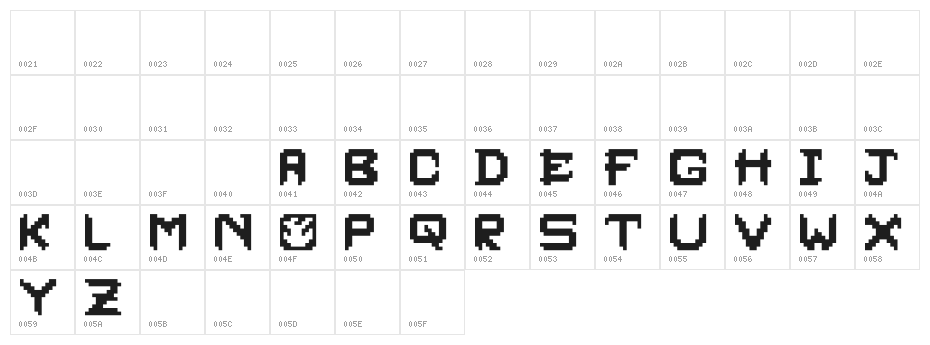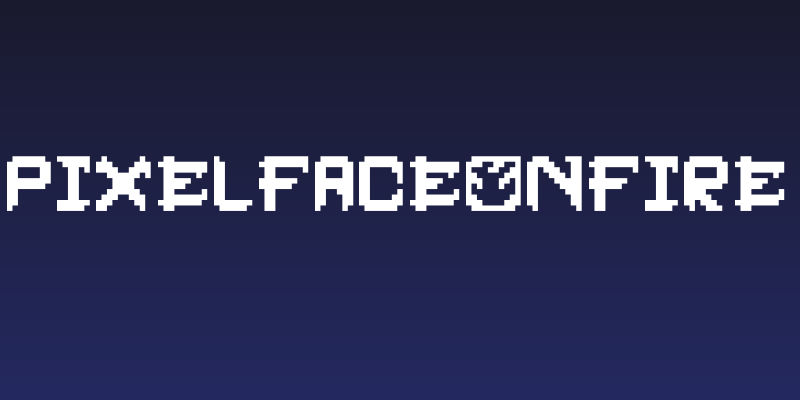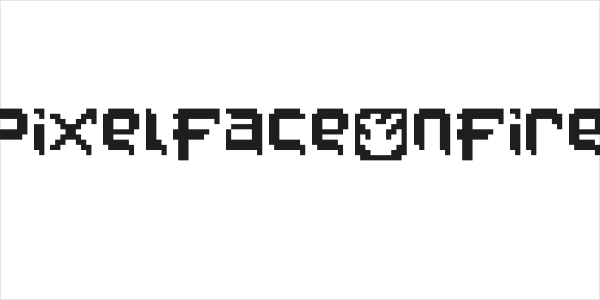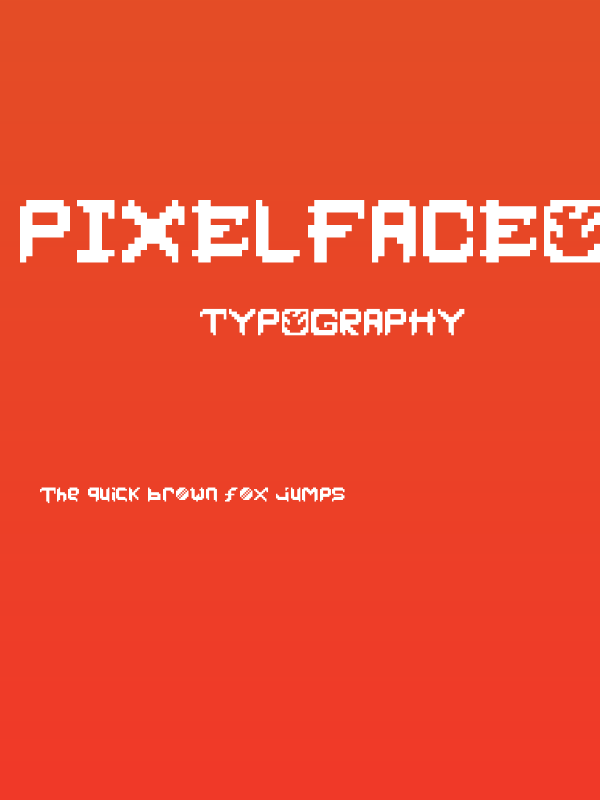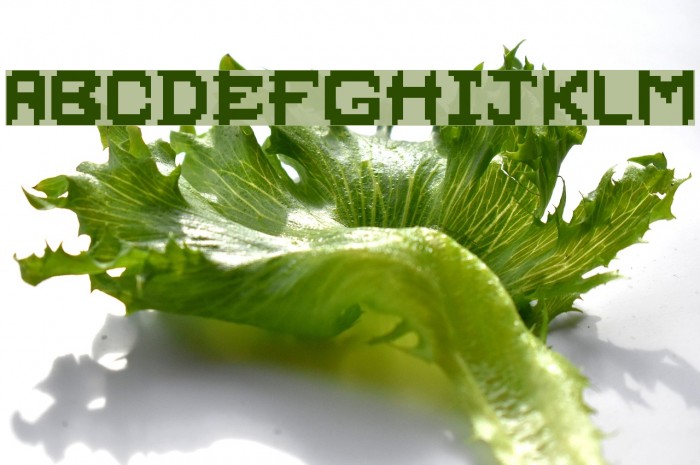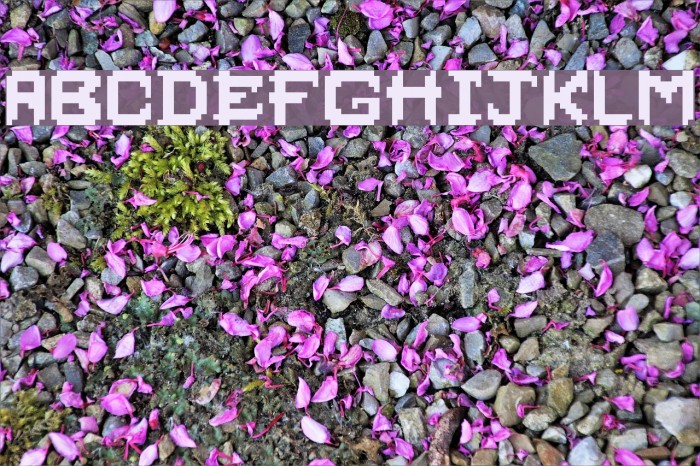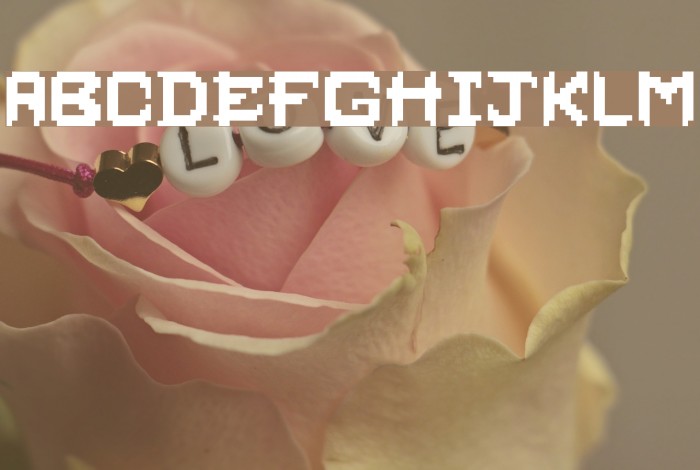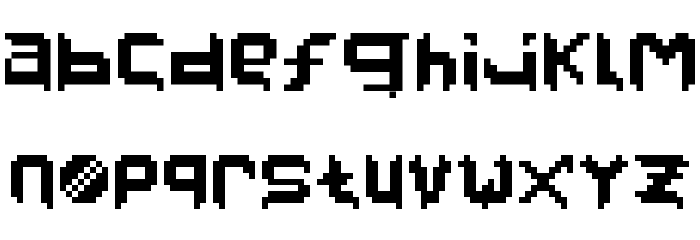
PixelFaceOnFire Font
PixelFaceOnFire Description
This font features a bold, pixelated design reminiscent of classic video game graphics. Each character is constructed with a blocky, grid-like appearance, giving it a retro digital aesthetic. The uppercase and lowercase letters maintain a consistent pixelated style, with some characters incorporating unique elements, such as the slashed zero. The numbers and special characters follow the same pixelated theme, ensuring uniformity across the font. This design is ideal for projects that aim to evoke nostalgia or a digital, tech-inspired look.
| Overall Style | Retro, Digital |
| Proposed Projects | Ideal for video game graphics, retro-themed designs, digital art projects, and tech-related branding. |